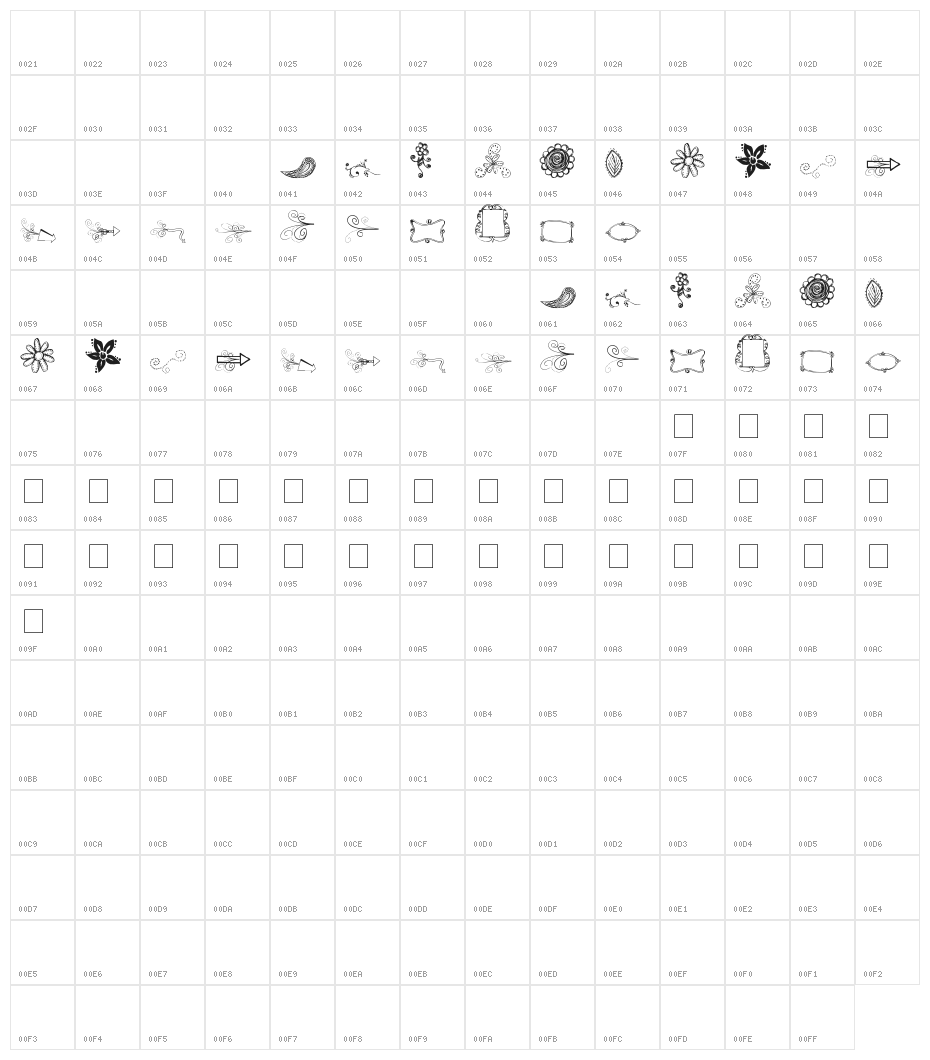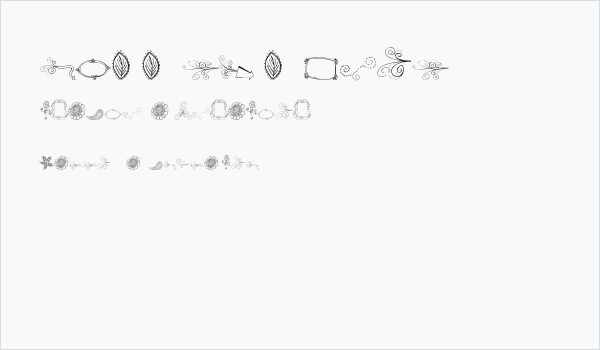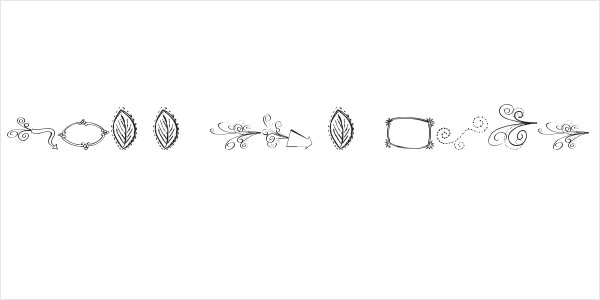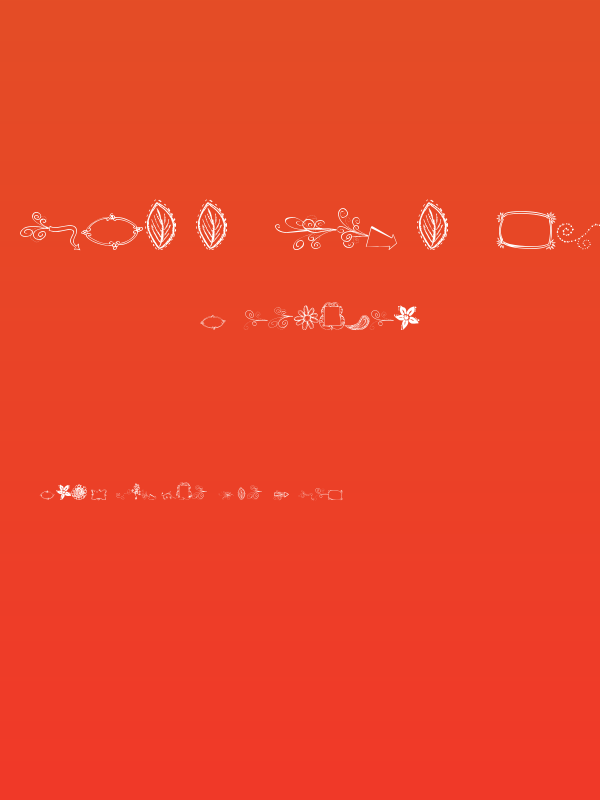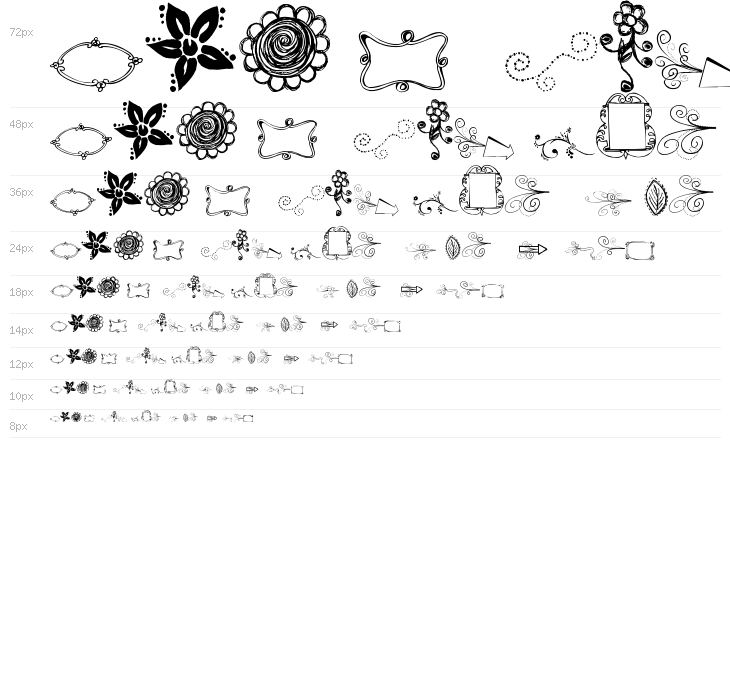
MTF Funk Fusion Font
MTF Funk Fusion Description
A decorative dingbat font featuring whimsical floral motifs, ornate frames, arrows, and swirling flourishes, all rendered in a hand-drawn, sketch-like style with varying line thicknesses and intricate details.
Overall StyleDecorative, Whimsical, Hand-drawn
Use CaseBorders, embellishments, decorative accents
Proposed ProjectsInvitations, scrapbooking, greeting cards, decorative borders, craft projects, digital art embellishments.